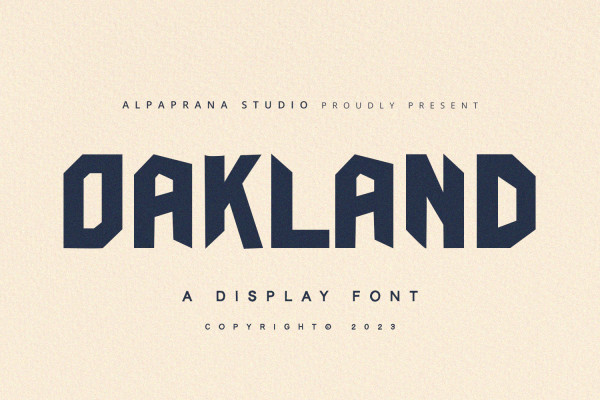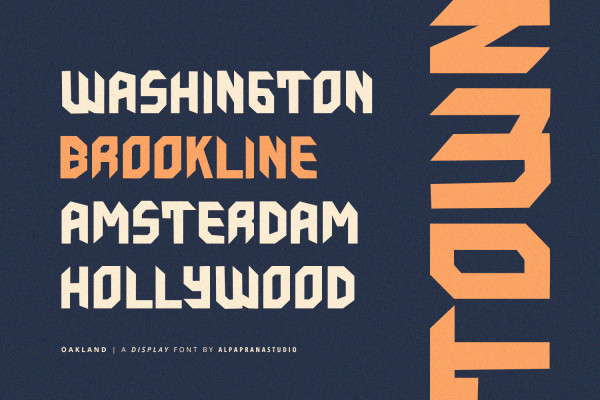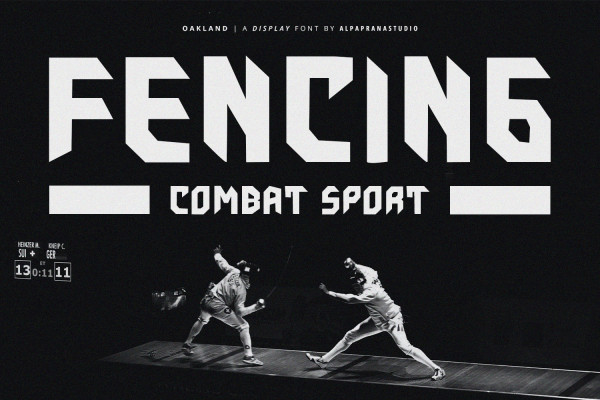
Oakland Font
Oakland Font is a display font with modern feels. It will be perfectly used for Branding, Logo Design, Lettering, Logotype, Clothing, Poster, magazine, packaging, posters, shopping bags, t-shirts, book covers, photography, special events and other design project.